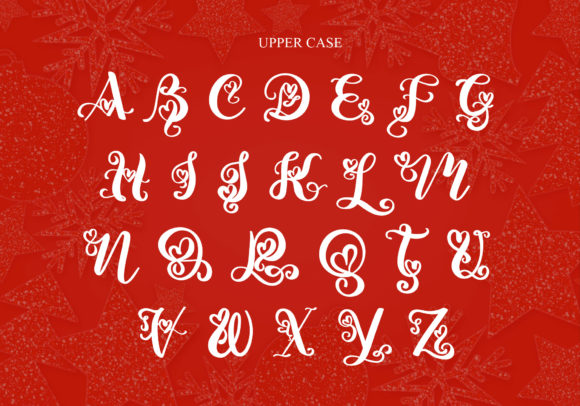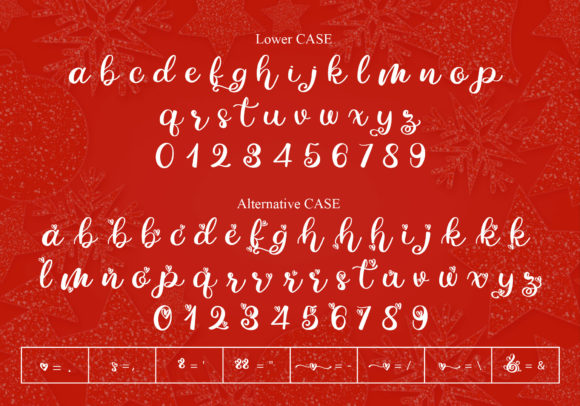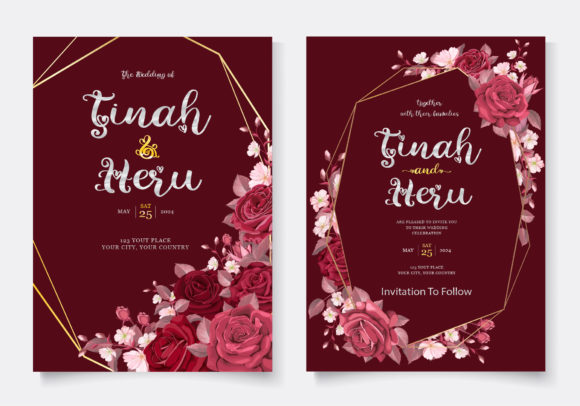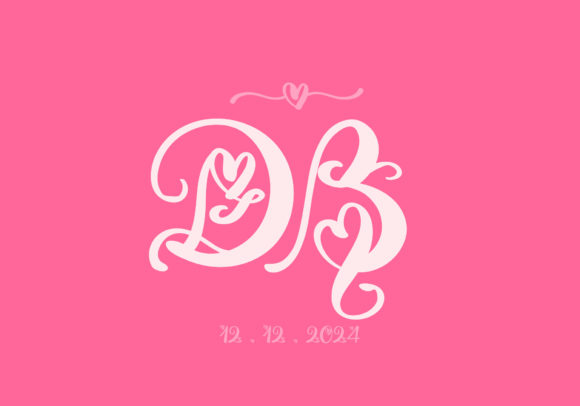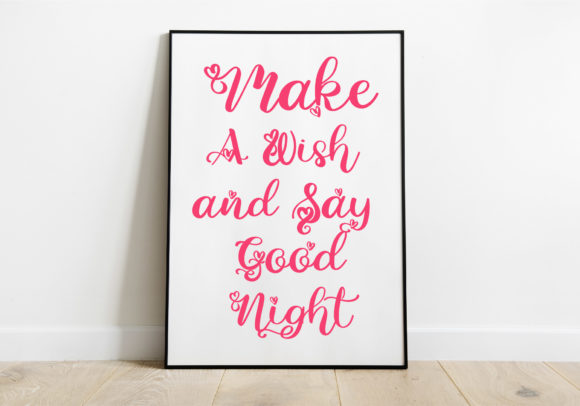
About Christmas Love Font
Christmas Love is a beautiful, fresh, rich, and elegant handwritten font. It is ideal for holiday-themed greeting cards and for any crafting project that requires a romantic touch.